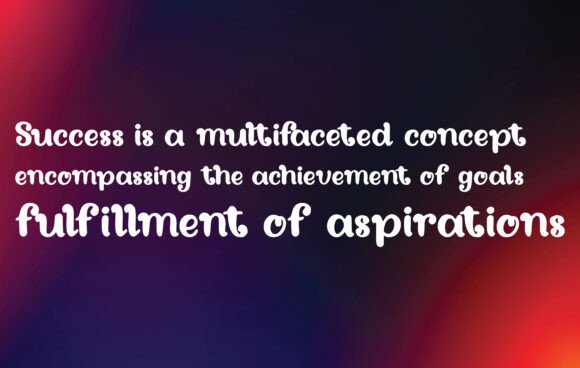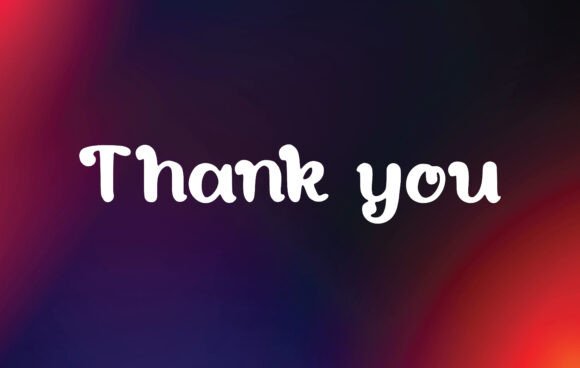
Introduction to Hollis Font
Do you remember the moment when your creative idea struck, and you couldn’t wait to bring it to life? The rush of excitement, the spark of inspiration, and the desire to share it with the world. For designers, this moment is a regular occurrence, and it’s what drives them to create something truly remarkable. Whether it’s a logo, a branding, or a quote, the right design resource can make all the difference.
One such resource that can elevate your creative project is the beautiful Hollis Font. This lovely handwritten font has the potential to take your ideas to new heights, making it a valuable addition to any designer’s toolkit.
Key Features of Hollis Font
- High-Quality Design: Hollis Font is a premium font designed for creative projects, offering a unique and elegant touch to any design.
- Transparent Background: This font features a transparent background, making it ideal for use on images or videos with a clear background.
Honest Review: Hollis Font
I recently stumbled upon the Hollis Font, and I must say, it’s been a game-changer for my creative projects. As a designer, I’m always on the lookout for high-quality design resources that can elevate my work, and this font definitely delivers.
Here are some things that work well:
- ✨ The font is incredibly versatile, making it perfect for a wide range of creative projects, from logos to brochures.
- ✨ The transparent background feature allows for seamless integration with any design element, giving me more flexibility when working on complex designs.
- ✨ The high-quality design is evident in every aspect of the font, from its crisp lines to its elegant curves.
However, I do have a few minor complaints:
- ⚠️ The font family is relatively small, which might not be ideal for large-scale designs.
Overall, I’m thoroughly impressed with the Hollis Font. Its high quality, versatility, and transparent background feature make it an excellent addition to any designer’s toolkit. While it may have a few limitations, it’s definitely worth considering for your next creative project.
Tips for Getting the Most Out of Hollis Font
Use the Hollis Font in combination with other high-quality design resources to create a cohesive and visually appealing design. Experiment with different font sizes and styles to add depth and interest to your project.
The Hollis Font is suitable for a variety of creative projects, including branding, marketing materials, and digital graphics. You can use the font to create custom logos, icons, and text overlays that add a professional touch to your designs.